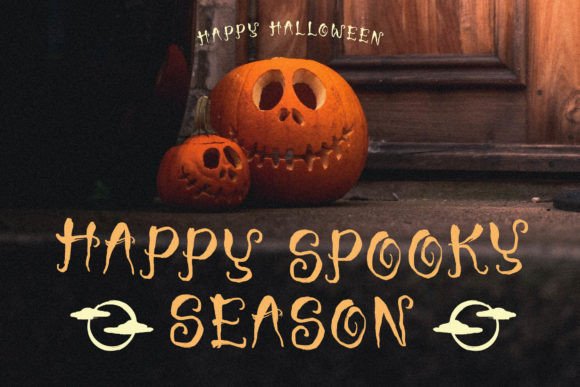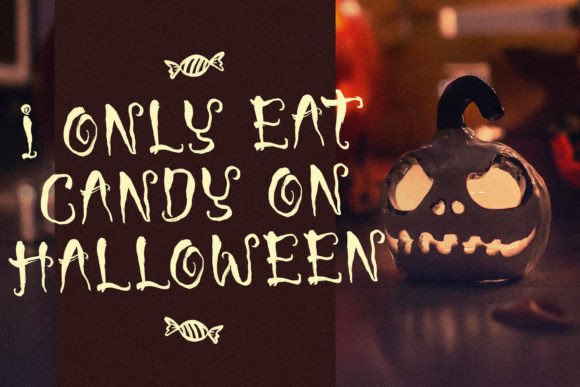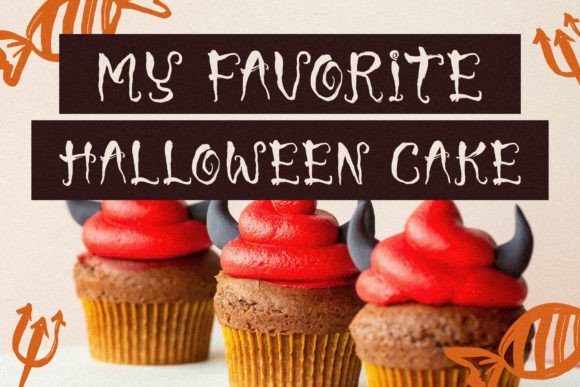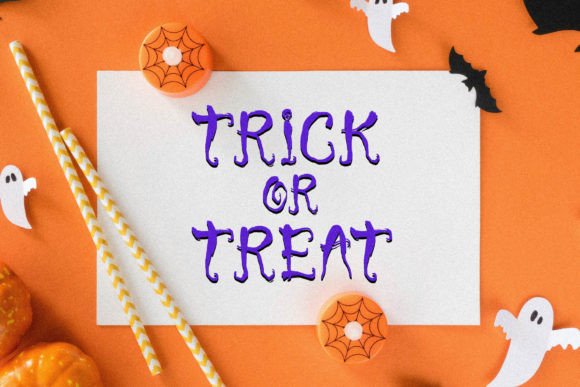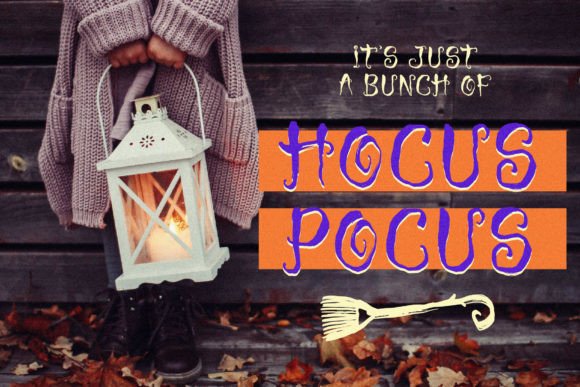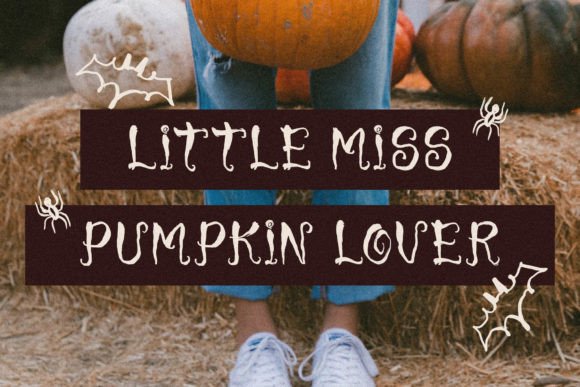
Introduction to Scream Ghost Font
As a designer, there’s nothing quite like the rush of finding the perfect font to bring your creative project to life. Whether you’re working on a spooky Halloween logo or a whimsical greeting card, the right font can make all the difference. And that’s exactly why we’re excited to introduce you to the Scream Ghost Font – a high-quality, free download that’s sure to add a touch of elegance to your design.
| 👤 Author | Glorytype Studio |
Imagine being able to create a hauntingly beautiful logo for a client’s new horror-themed product line, or designing a set of invitations for a Halloween party that will leave guests in awe. With the Scream Ghost Font, you’ll have the perfect design resource to bring your vision to life. And with its transparent background, you can easily layer it over any image or design element to create a truly unique look.
Key Features of Scream Ghost Font
- Scream Ghost Font is designed with a unique, eerie aesthetic, featuring a bold and distressed style.
- Perfect for horror-themed designs, gothic-inspired art, or any project that requires a spooky and mysterious atmosphere.
Honest Review: Scream Ghost Font
I recently had the opportunity to work with the Scream Ghost Font, and I must say it’s been a game-changer for my design projects. This high-quality font is perfect for anyone looking to add a touch of eeriness to their creative project.
What works well: ✨ I love how the transparent background allows for seamless integration with any image or design element. It’s incredibly versatile and has opened up a world of possibilities for me. The font itself is also highly customizable, making it easy to adjust to fit my specific design needs.
Here are some of the key features that make the Scream Ghost Font stand out:
- Customizable font for easy adjustment
What could be improved: ⚠️ While the font is incredibly versatile, it may not be suitable for all design projects. I’ve found that it works best for more dramatic or horror-themed projects. Additionally, the font may not be as readable in smaller font sizes, so be sure to test it out before using it in a large-scale design.
Overall, I’m thoroughly impressed with the Scream Ghost Font and would highly recommend it to anyone looking for a high-quality design resource for their creative project.
The Scream Ghost Font is a high-quality, unique design resource ideal for creative projects that require an eerie or supernatural atmosphere. This font features a transparent background, allowing for seamless integration with various design elements.
Tips for Getting the Most Out of Scream Ghost Font
To get the most out of the Scream Ghost Font, experiment with different font sizes and styles to achieve the desired effect. You can also combine the font with other design elements, such as images or graphics, to create a unique and eerie atmosphere.
The Scream Ghost Font is ideal for creative projects that require an eerie or supernatural atmosphere, such as horror movie posters, haunted house designs, or supernatural-themed graphics.